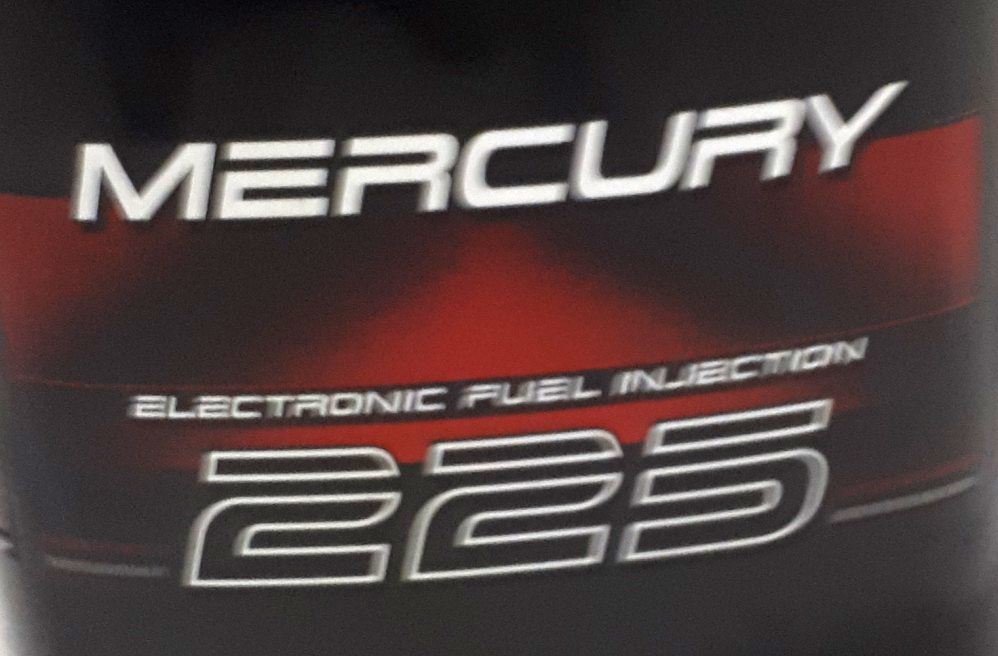
I’m trying to reproduce this boat decal, I believe it’s from the late 90’s. The font has similarities to Eurostile and Hemi Head, but neither are quite right. Any help would be appreciated.
I apologize for the quality, I’m working with what I’ve been given. If it helps here’s a link to a similar decal that’s being sold (and uses the same font): Mercury 250 hp OFFSHORE decal set